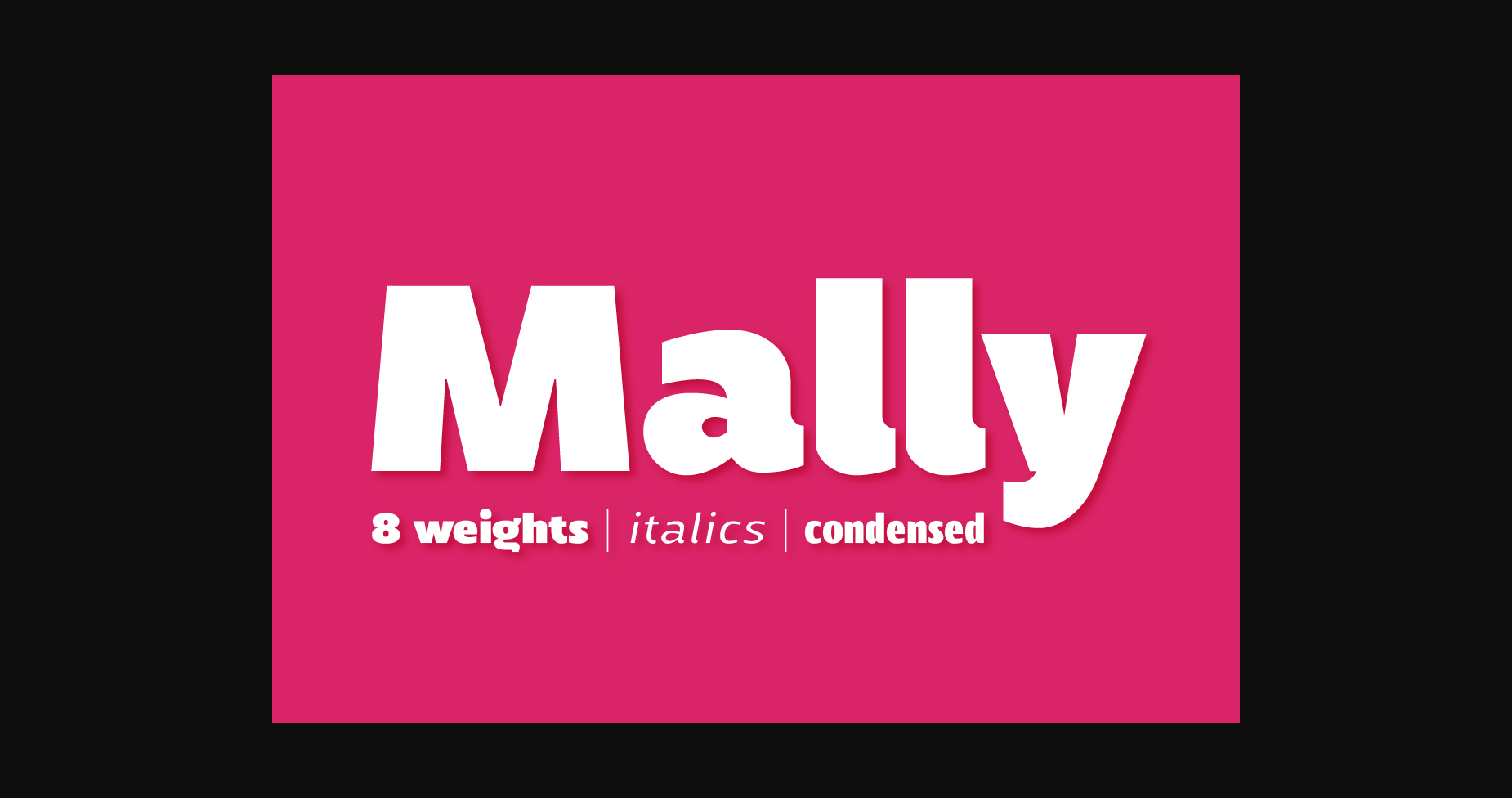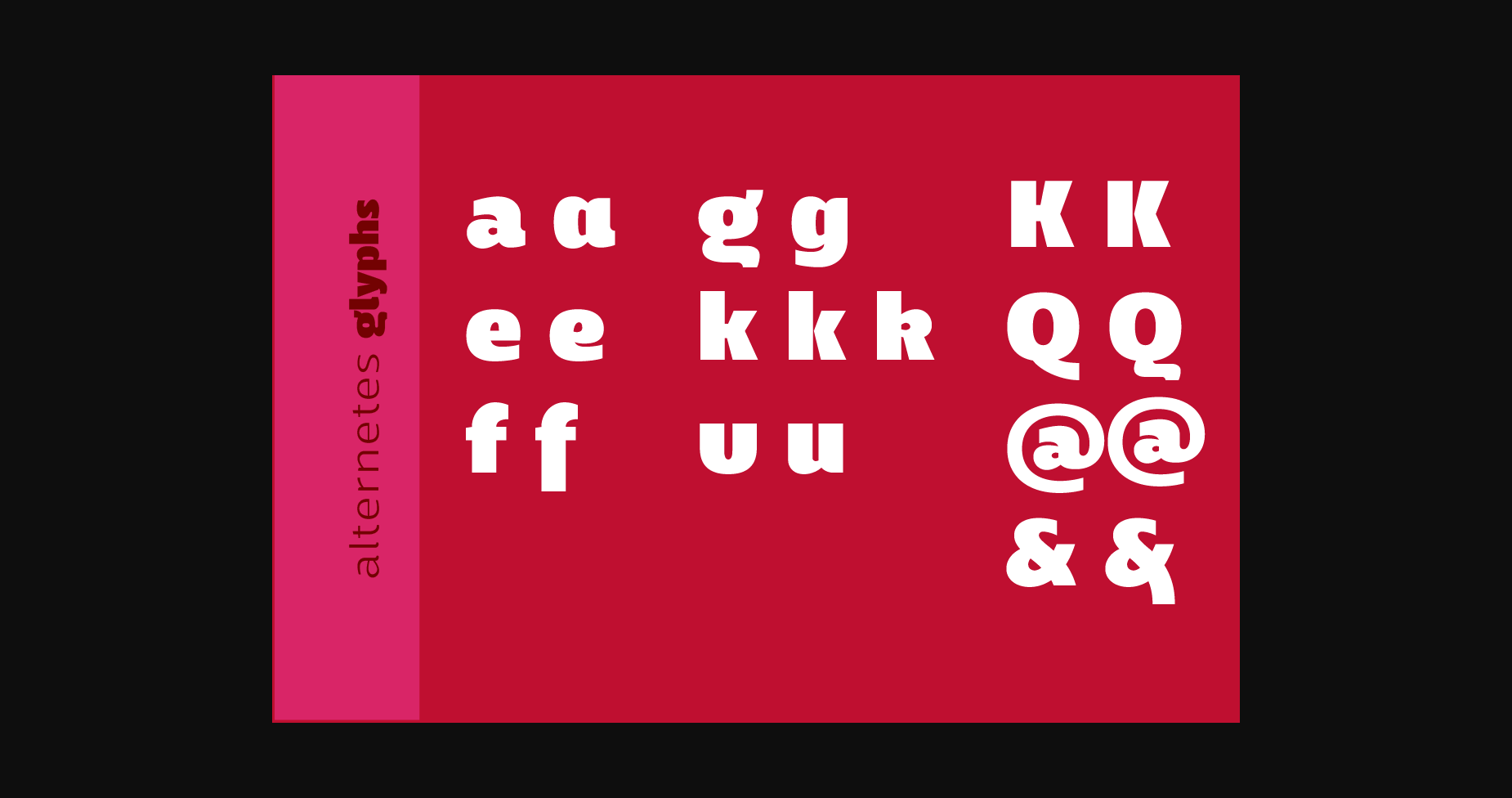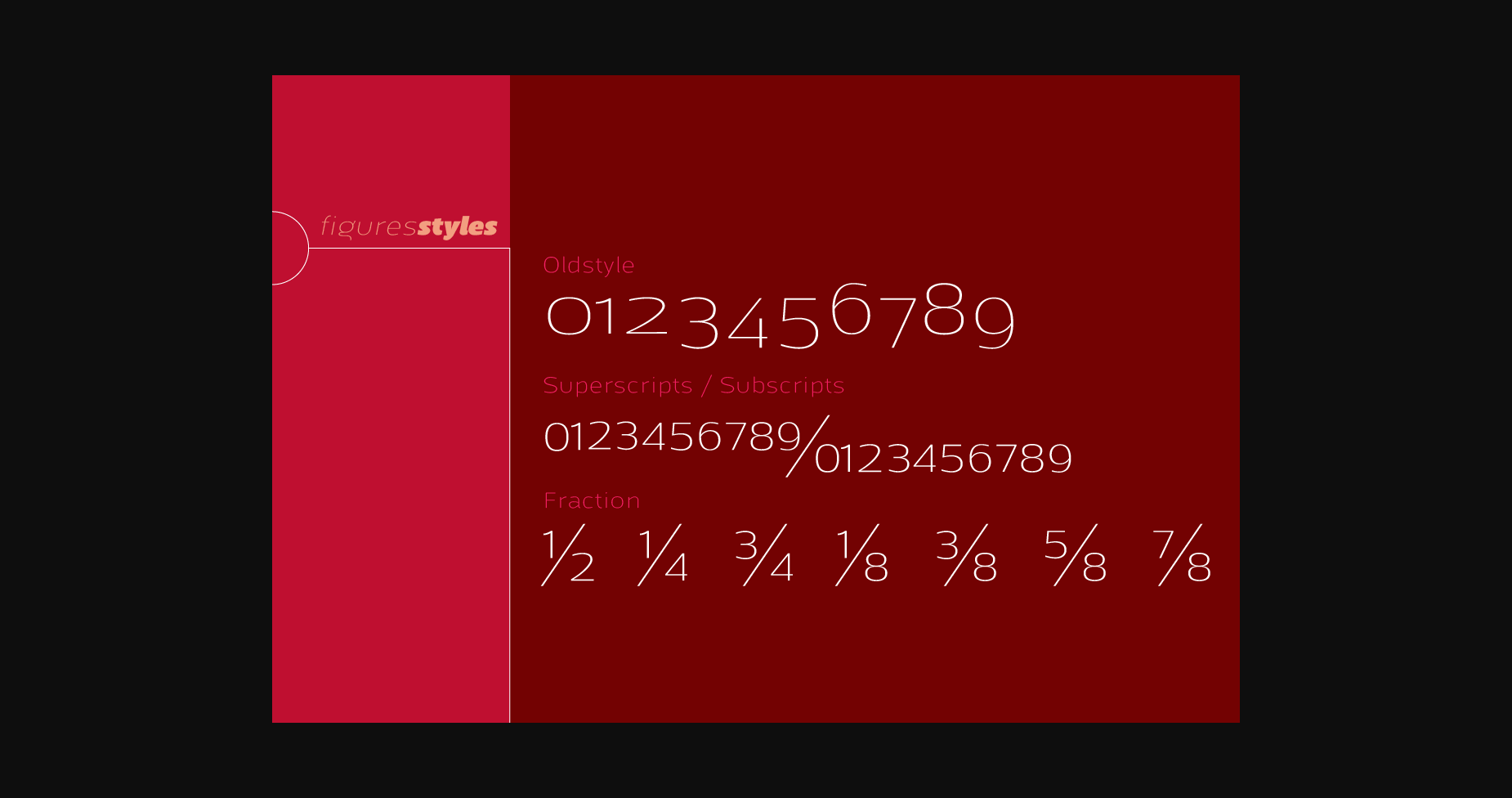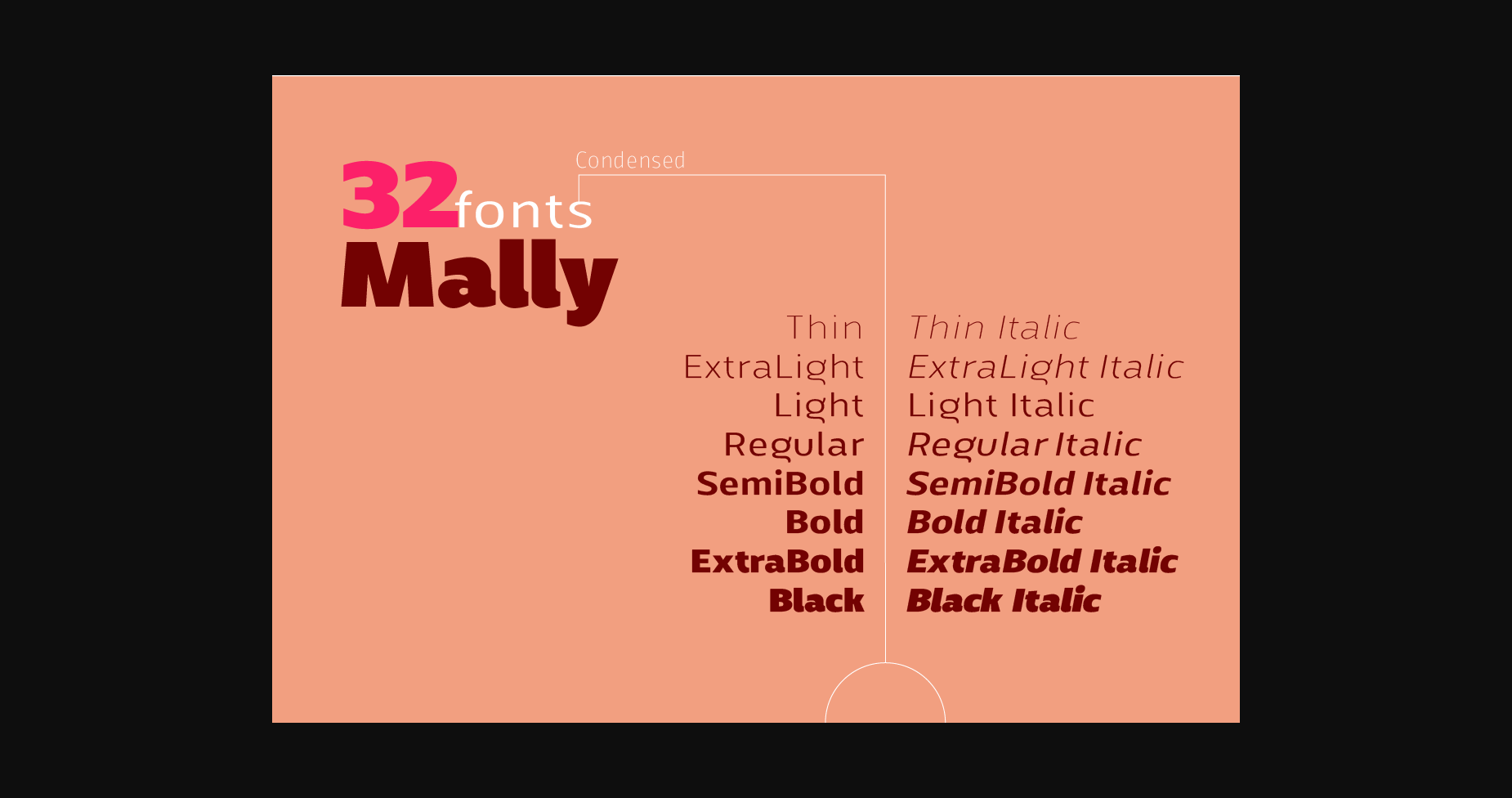
About Mally Font
Mally is a family of humanist fonts, sans serif with 32 styles, variable with 08 normal and condensed weights and their respective italics, with 594 characters in each font, offers alternative characters, and was conceived as a variable font encompassing various weights and widths. Characterized by its excellent readability even in the smallest sizes, with a contemporary design it has a wide support of Latin languages.